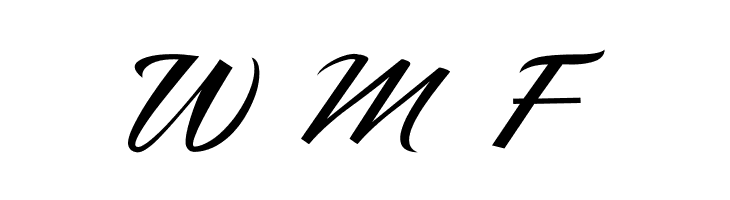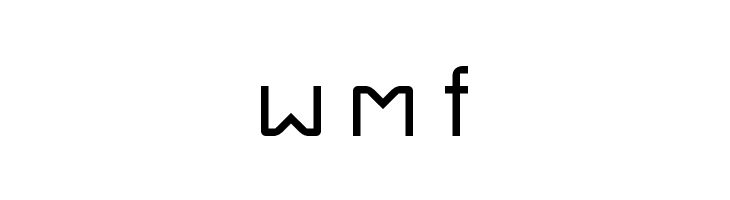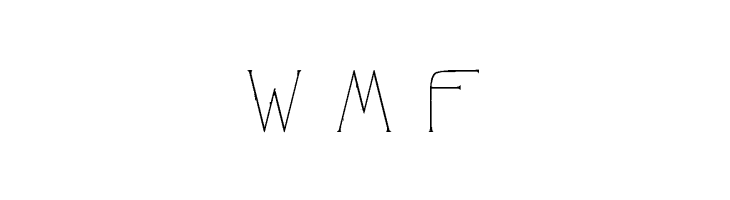
( Haley Powers )
A minimalist and modern font with thin, linear strokes and geometric shapes.
( Hanny Sandoval - www.behance.net/hannysandoval )
A modern, ultra-thin, and elongated font with a minimalist design.
( Hareesh Seela )
A modern, minimalist font with clean lines and geometric shapes.
( Haris Prawoto - graphicriver.net/user/selawe/portfolio )
A dynamic, flowing script font with elegant, interconnected letters.
( Henrik Johansson - mediocre.se )
A modern, geometric font with clean lines and a minimalist aesthetic.
( Henry Cohn )
A geometric, minimalist font with thin, linear strokes and angular forms.
( Henry Paúl Sánchez Cuarán - www.facebook.com/mcpulk )
An ultra-light, line-based font with minimalistic and elegant design.
( Henry Paúl Sánchez Cuarán - www.facebook.com/mcpulk )
A minimalist, line-based font with a geometric and modern style.
( Here Be Monsters - monsterswithin.com )
A modern, tall, and narrow font with clean lines and minimal curves.
( Here Be Monsters - monsterswithin.com )
A tall, narrow, and modern font with a sleek, minimalistic design.